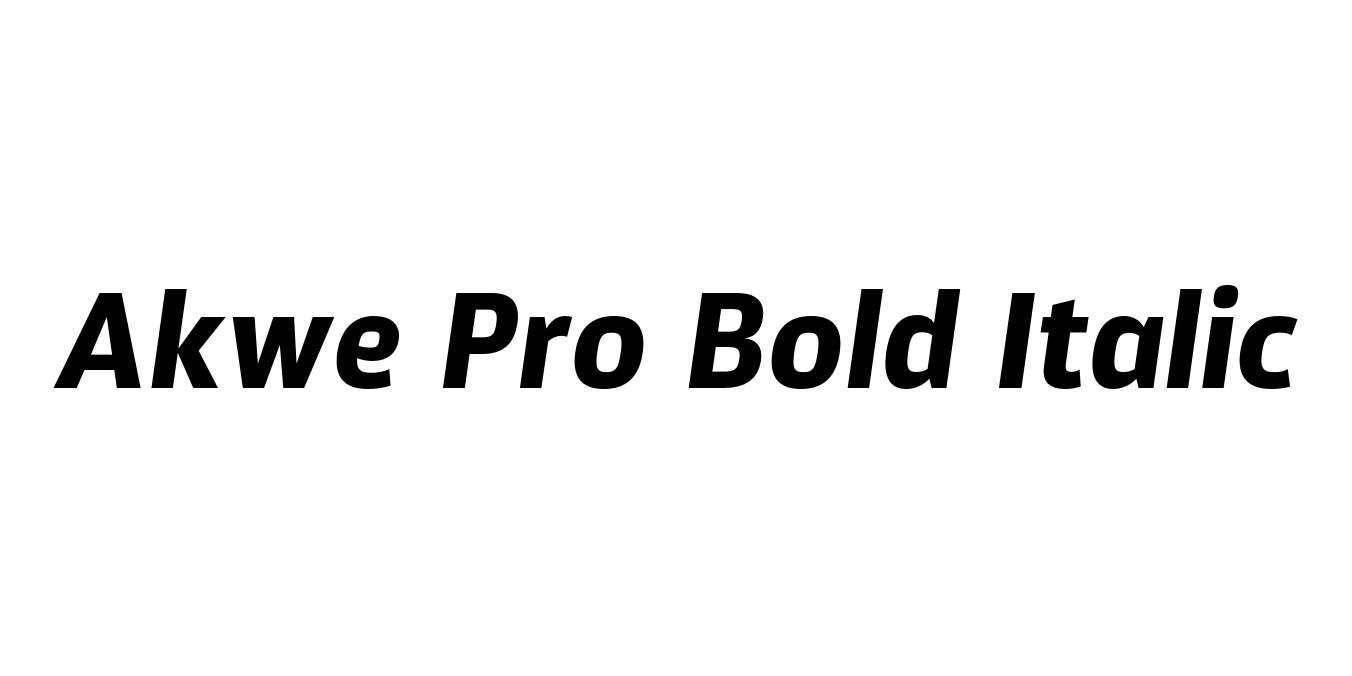
Akwe Pro Bold Italic
Designed by Olexa Volochay
Akwe Pro Bold Italic is a contemporary sans-serif typeface that masterfully blends geometric precision with humanist warmth. Designed by Olexa Volochay, this font family was crafted to meet the rigorous demands of professional graphic design, offering a versatile range of weights and styles. The Bold Italic variant provides a dynamic, forward-leaning energy that adds emphasis and a sense of movement to any composition, making it a favorite for modern designers.
With its high x-height and open apertures, Akwe Pro Bold Italic ensures exceptional legibility across both digital and print platforms. Its sophisticated structure makes it particularly effective for corporate identities, editorial layouts, and high-end branding projects where a balance of authority and elegance is required. The typeface stands out as a reliable choice for creating a cohesive and impactful visual language.
Akwe Pro Bold Italic Best Uses
Perfect for high-impact titles that require a sense of motion and urgency.
Ideal for tech and lifestyle brands seeking a modern, authoritative identity.
Excellent for emphasizing call-to-actions and important text in digital interfaces.
Adds a sophisticated flair to magazine pull-quotes and subheadings.